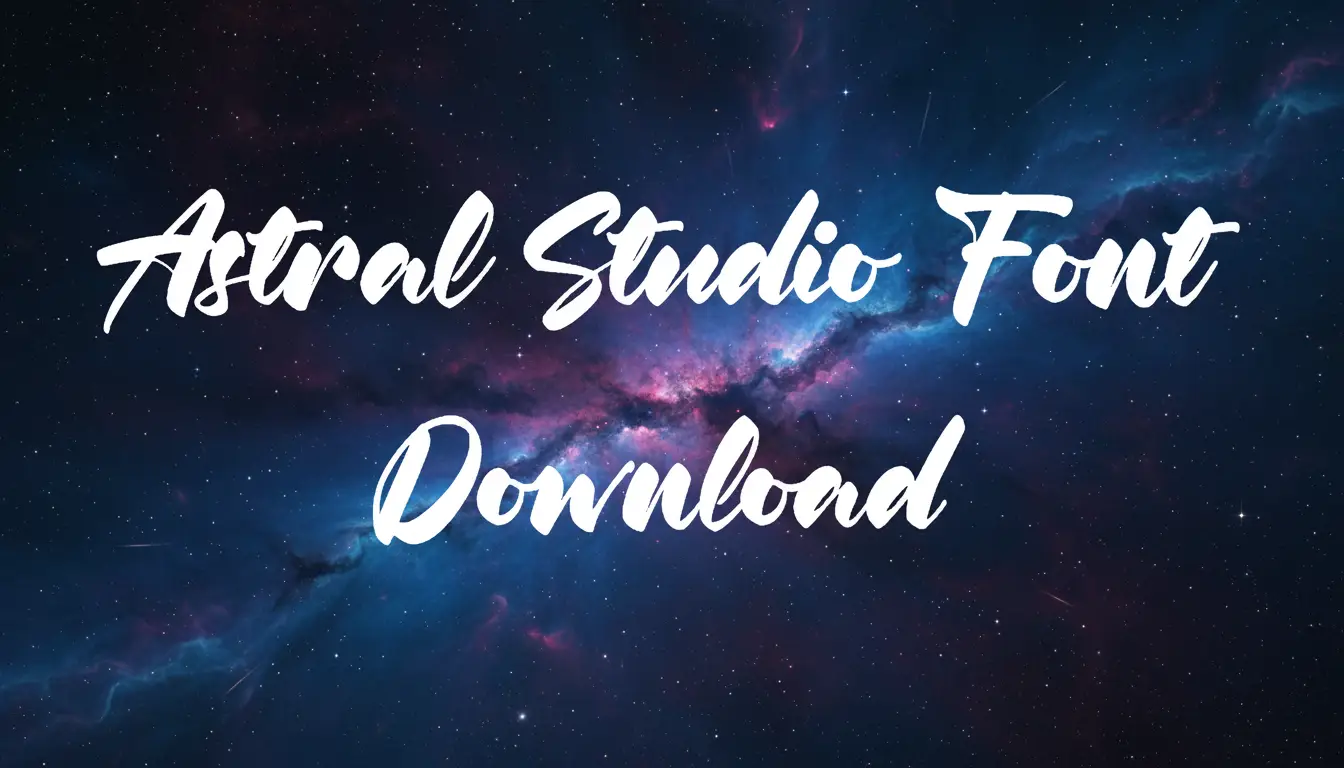
Astral Studio Font
Astral Studio
Astral Studio is a script font created by Octotype. Its flowing, pen-made letters give names and short phrases a personal, polished look. It's a free download, and you can try it with your own text in the preview above first.
- Designer: Octotype
What You Can Type With Astral Studio
You get every letter from A to Z in both cases and all the numbers from 0 to 9, which means Astral Studio can handle full sentences, dates and prices. Everyday marks like &, !, ? and @ are there too. Thanks to its accented letters, it also works for Spanish, French, Portuguese and Italian, not just English.
Where Astral Studio Works Best
Astral Studio is a natural fit for wedding invitations, logos and signature-style headings. Script fonts read best in short bursts, so keep it to names, titles and one-line quotes. Skip all caps: script capitals are drawn to start a word, not to fill one.
Does Astral Studio support accented letters?
Yes. Astral Studio includes the accented letters needed for Spanish, French, Portuguese and Italian, so it works for more than just English.